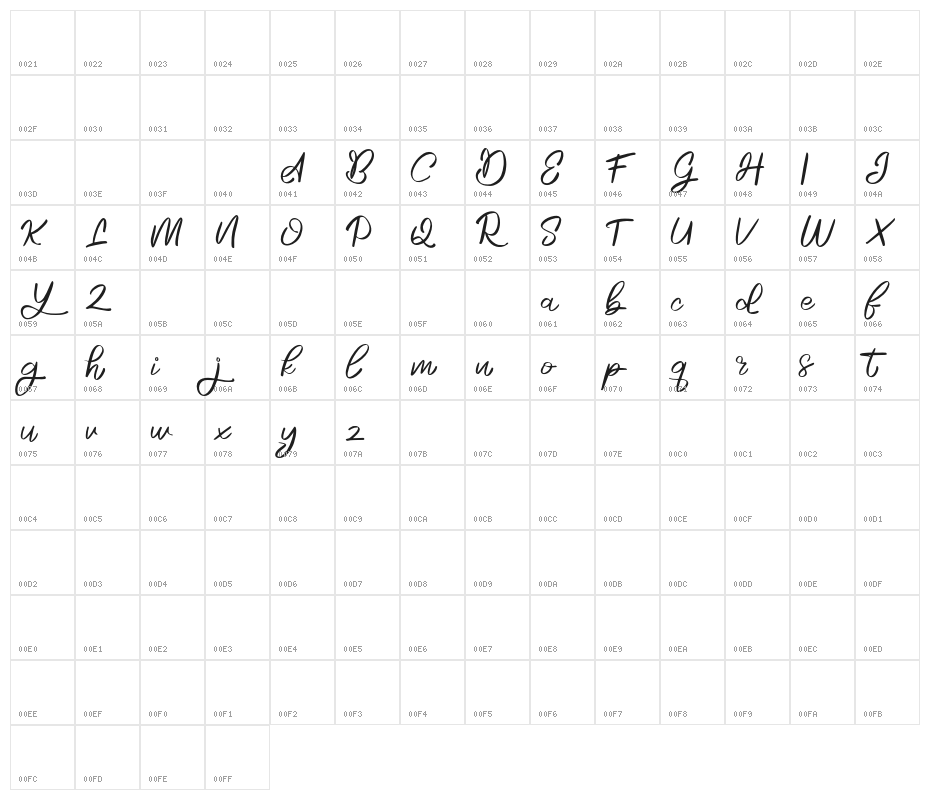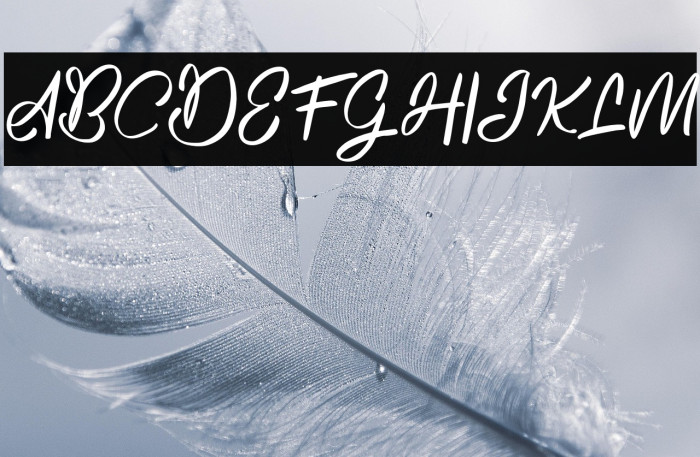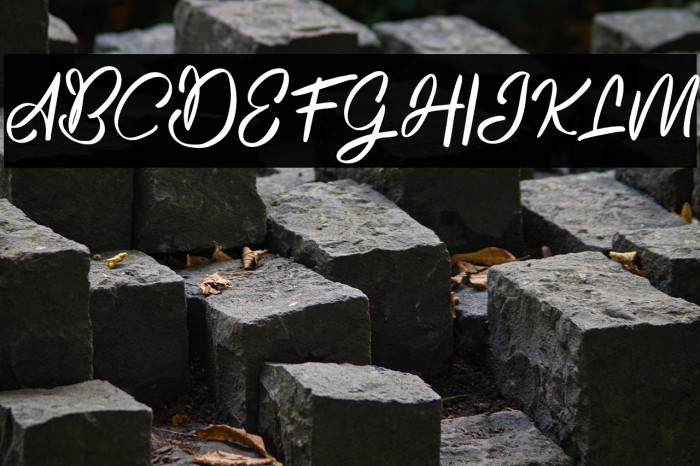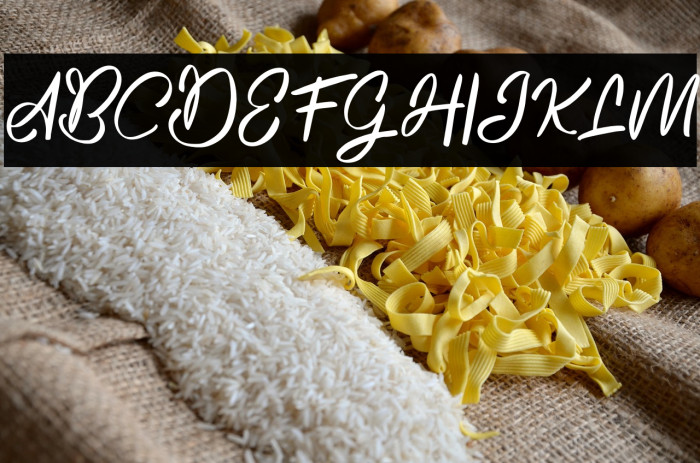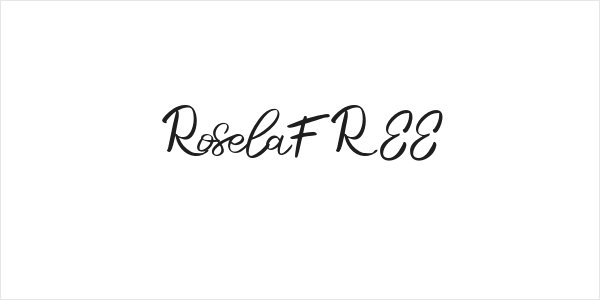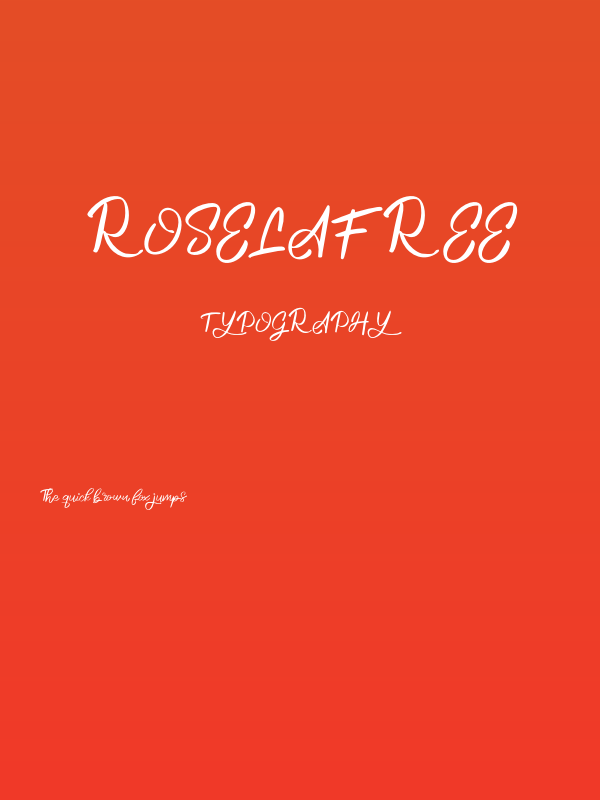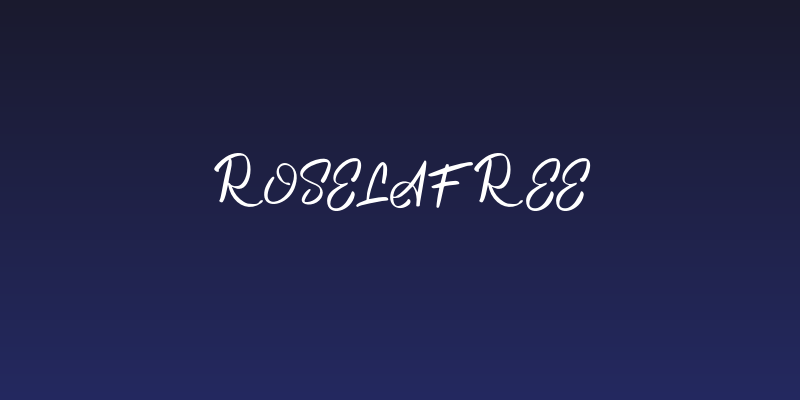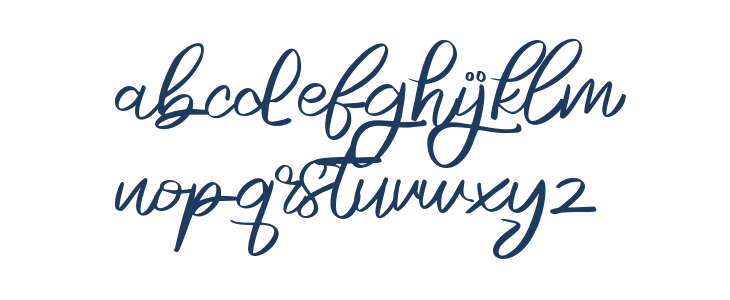
RoselaFREE Font
RoselaFREE Description
This font features a flowing, cursive style that exudes elegance and sophistication. The characters are interconnected, creating a seamless and fluid appearance. The uppercase letters are slightly more ornate, with flourishes that add a touch of flair. The lowercase letters maintain a consistent rhythm, enhancing readability while preserving the script's artistic nature. The strokes vary in thickness, providing a medium contrast that adds depth and interest to the text. Overall, this font is perfect for projects that require a personal, handwritten touch.
| Overall Style | Elegant |
| Use Case | Logos, Invitations, Personal Branding |
| Proposed Projects | Ideal for wedding invitations, greeting cards, personal branding, and elegant packaging. |